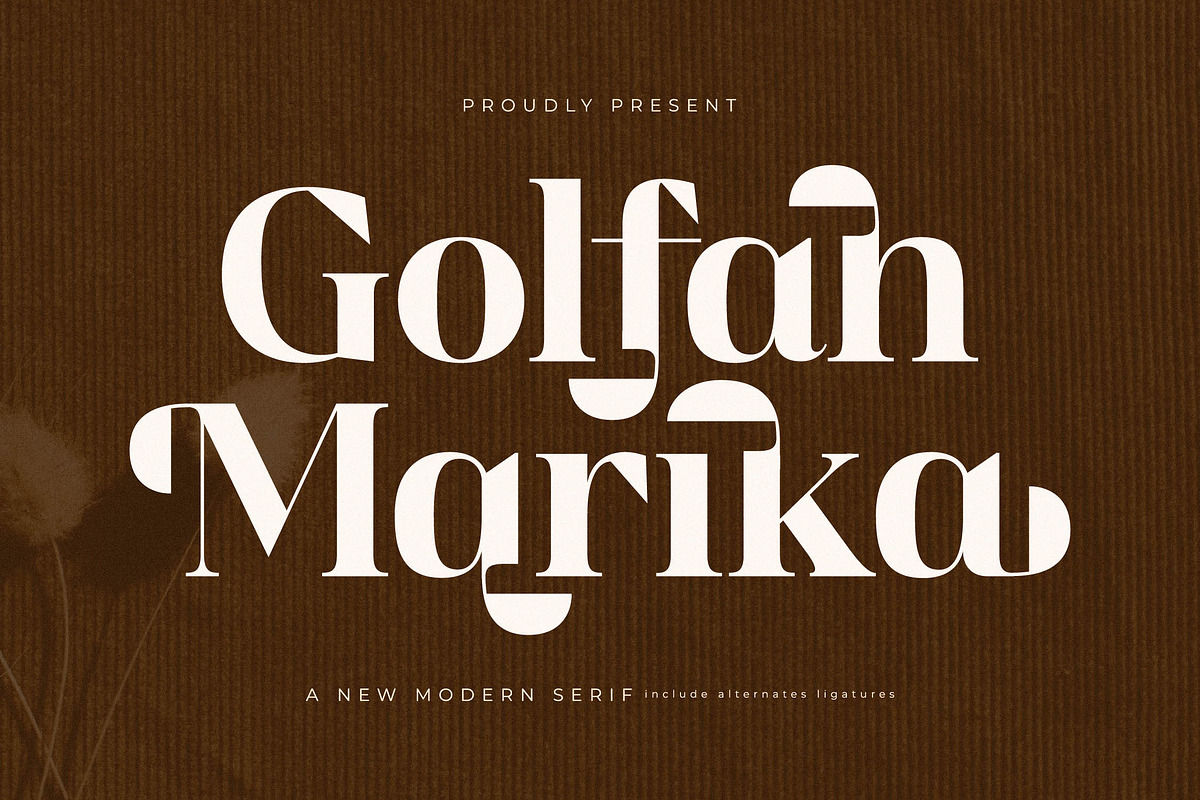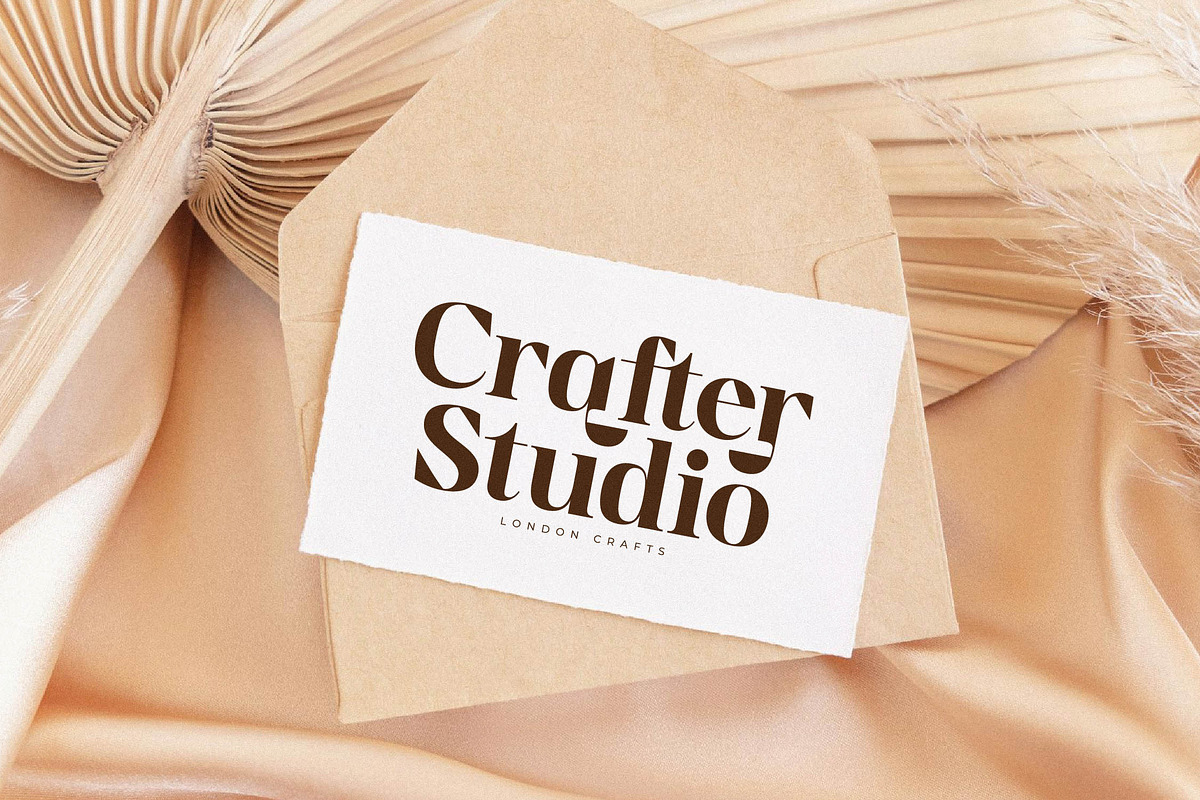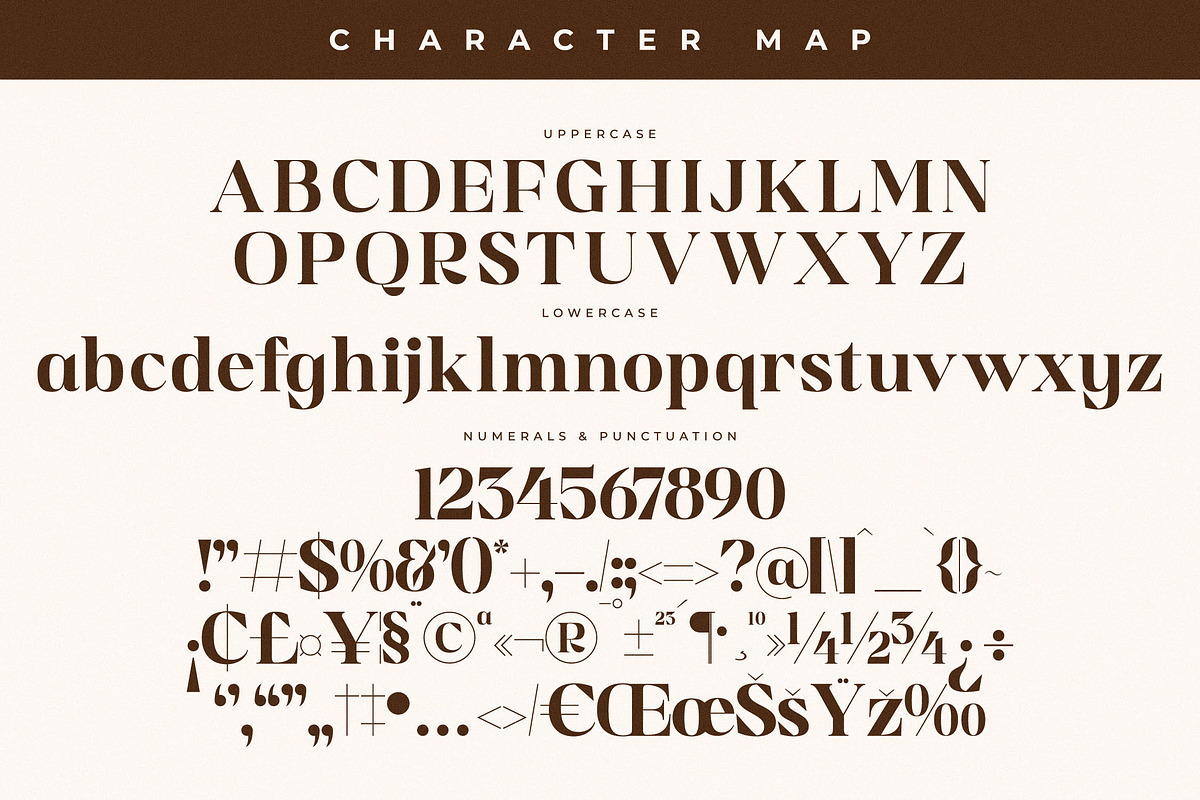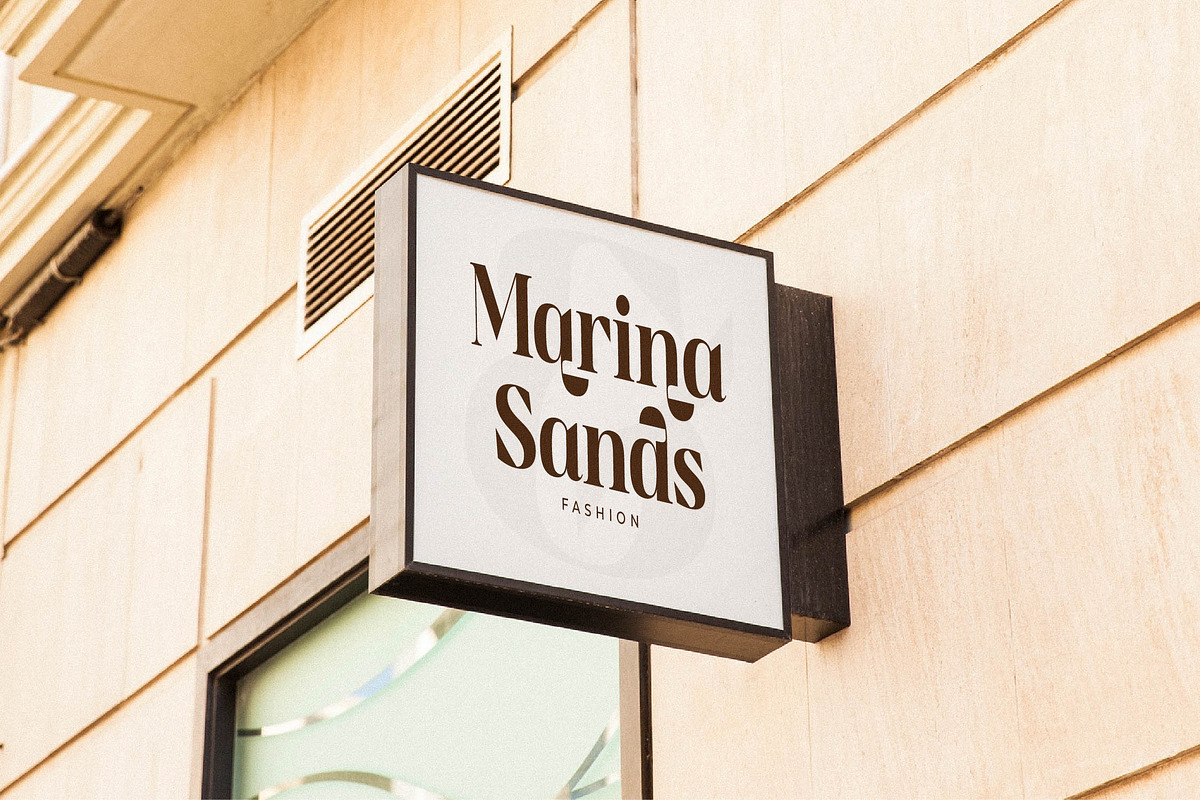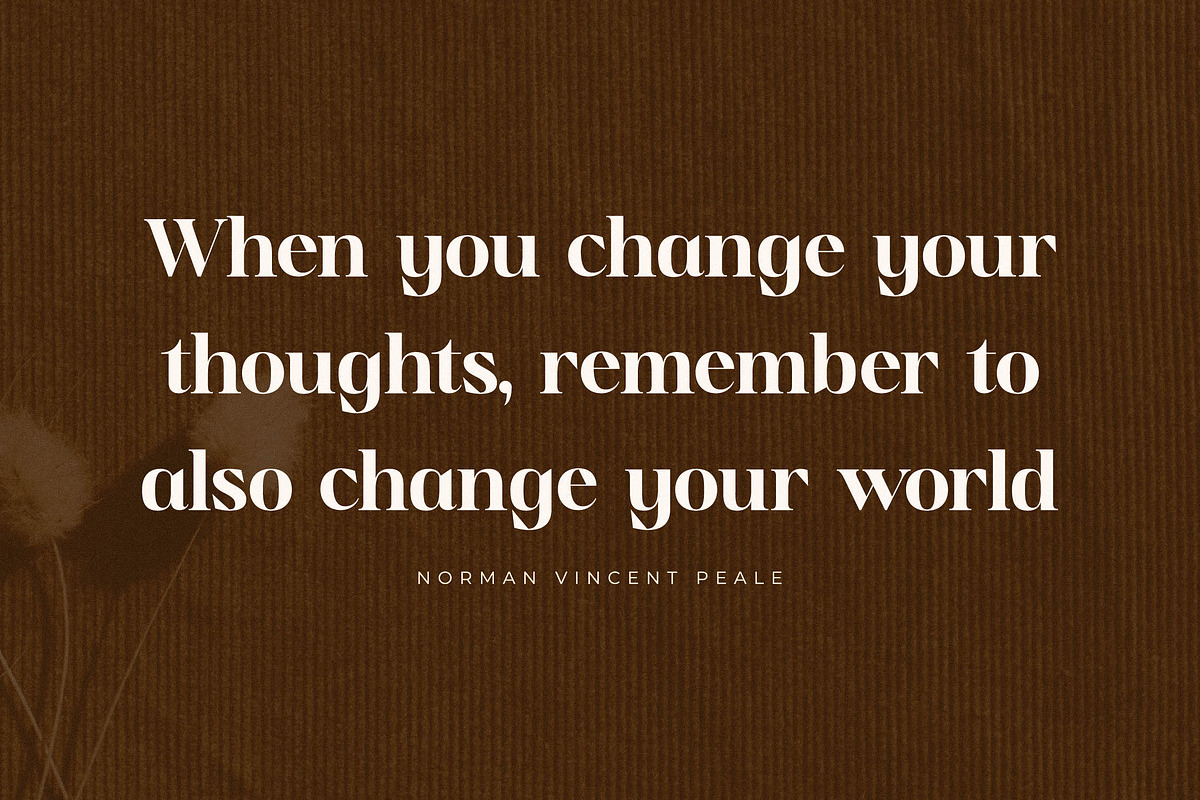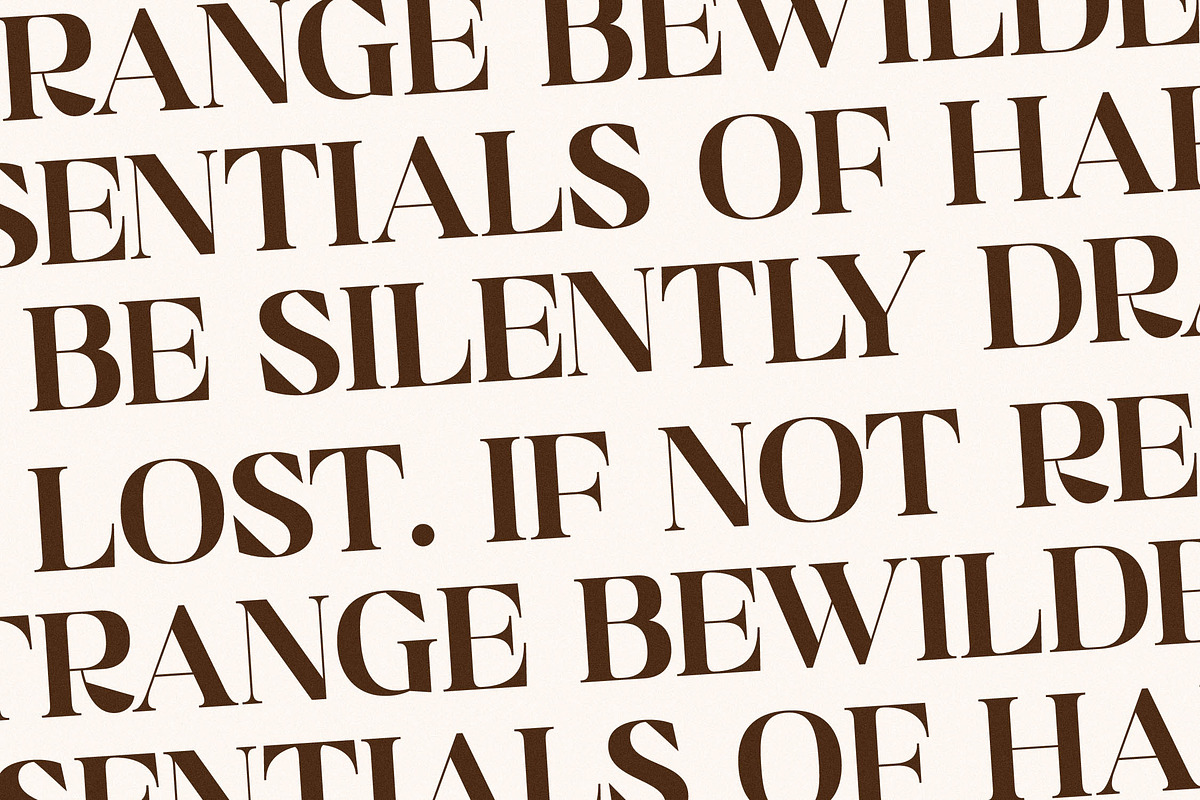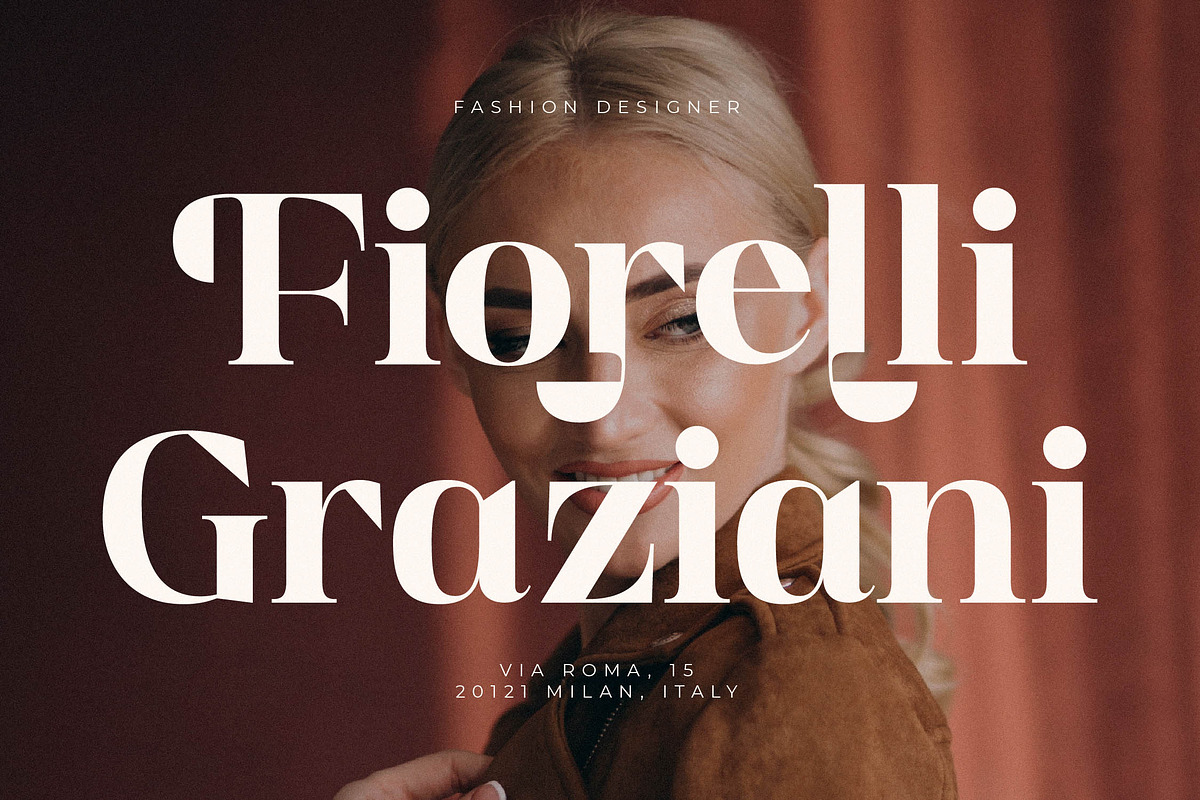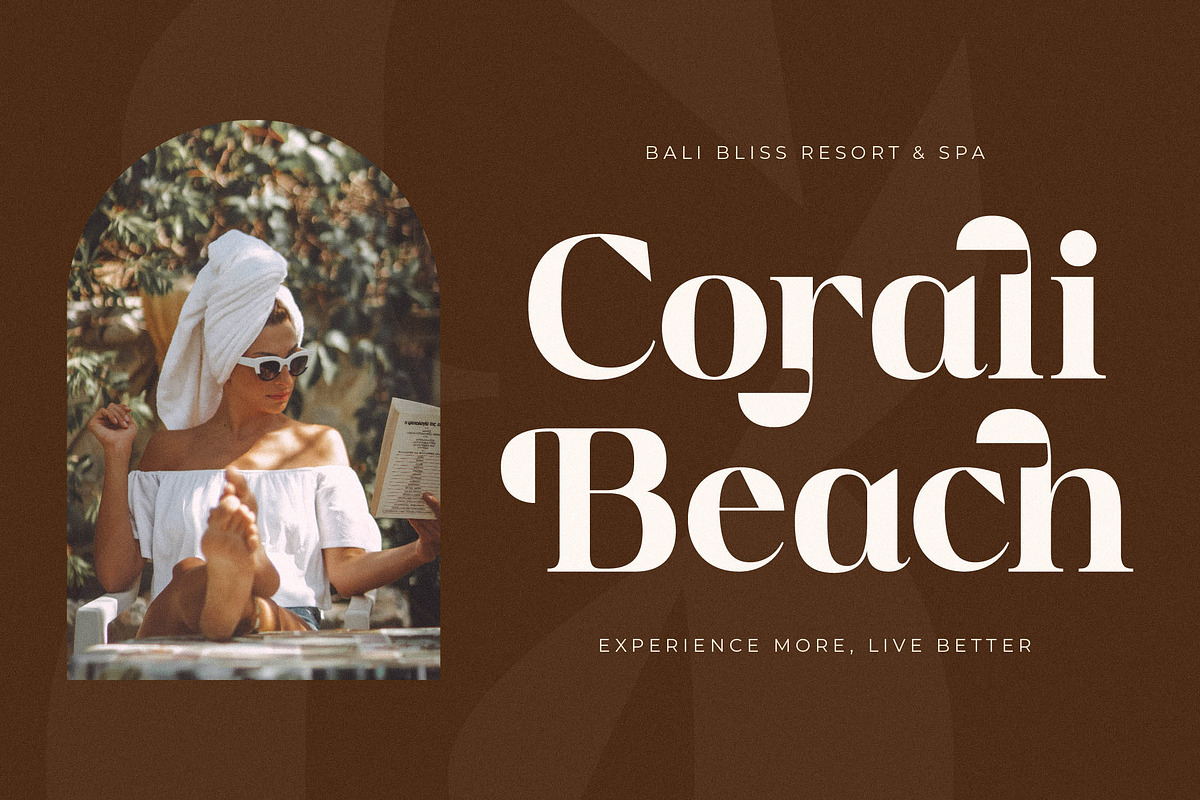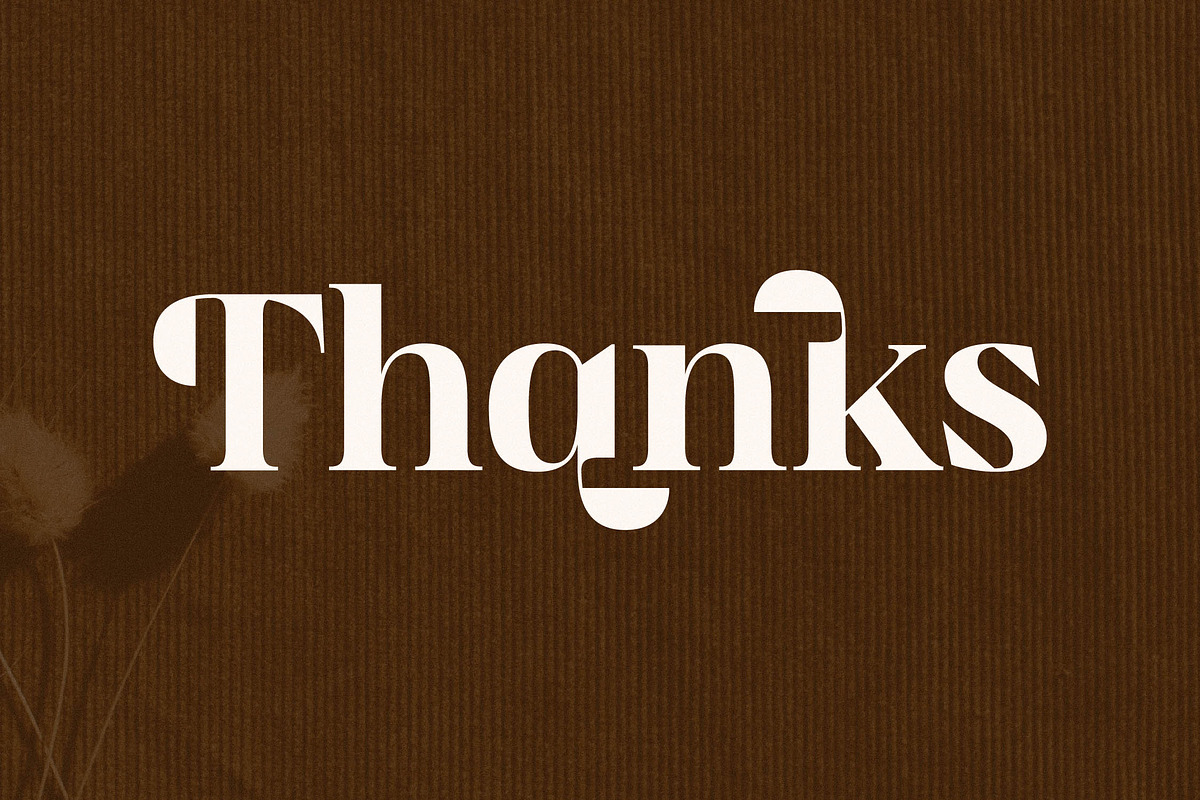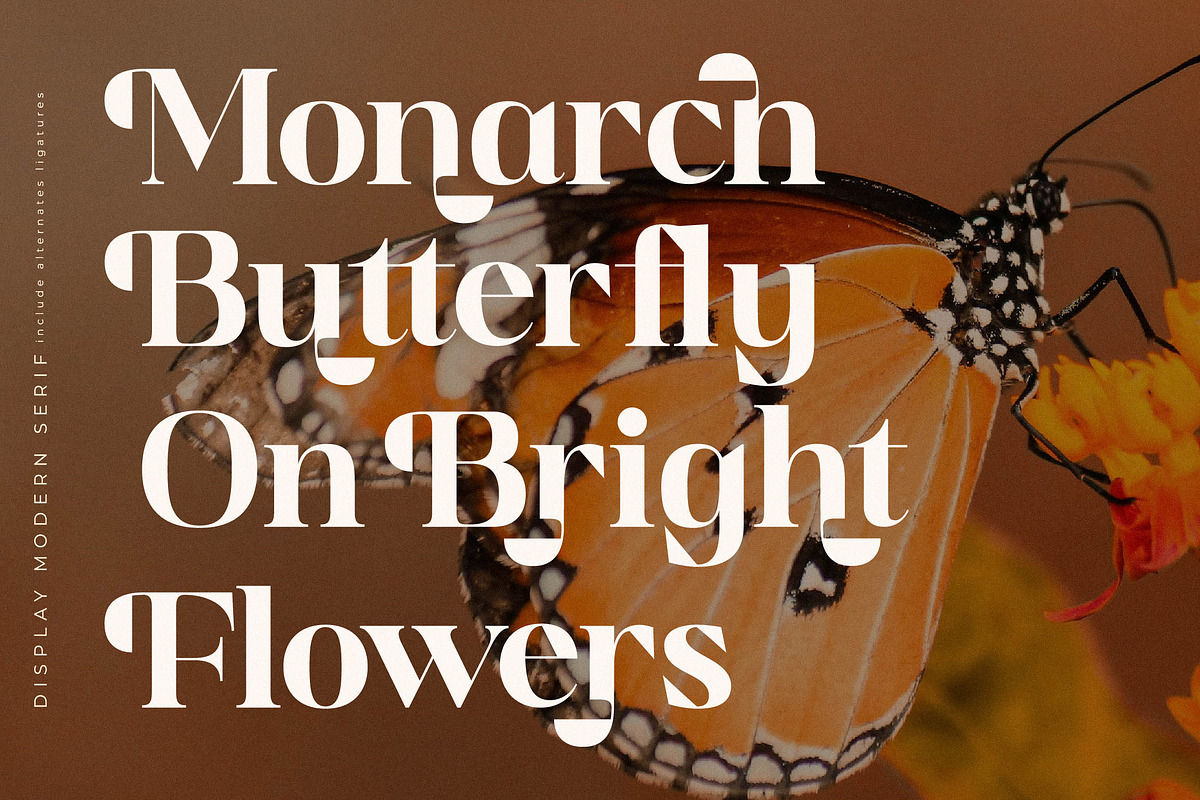
Golfah Marika A New Modern Serif
Proudly present Golfah Marika Typeface , created by Storytype, A serif modern and classic typeface that has own unique style & modern look. This typeface is perfect for an elegant & luxury logo, book or movie title design, fashion brand, magazine, clothes, lettering, quotes, and so much more.